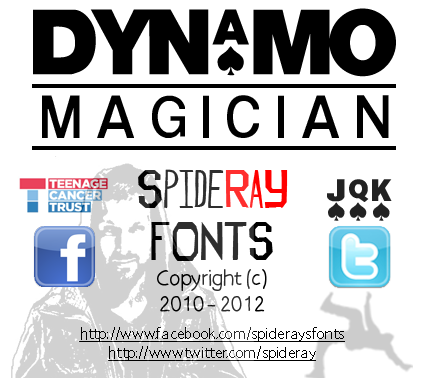
Origionally created to pay homage to the greatest living magician, Steven Frayne if you have not yet witnessed this modern day genius then check out his website @ http://www.dynamoworld.com/ and on facebook @ http://www.facebook.com/dynamomagician/ This font is now classed as Donationware all proceeds will go directly to the Teenage Cancer Trust 1062559 registered charity please donate whatever you can to https://www.teenagecancertrust.org/get-involved/make-a-donation/instant-donate/ , Charities Commission @ http://bit.ly/OnVCTI visit them on fb and twitter @ http://www.facebook.com/TeenageCancerTrust http://twitter.com/teenagecancer |